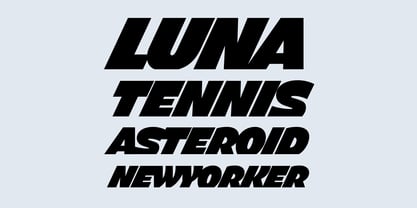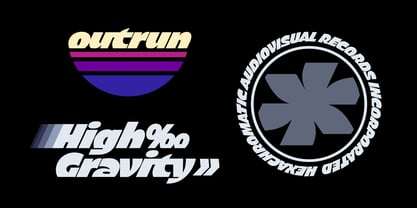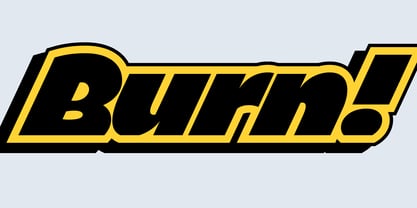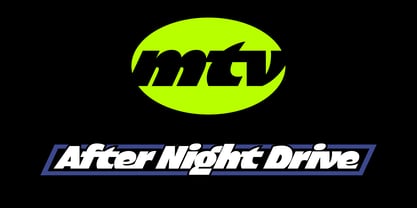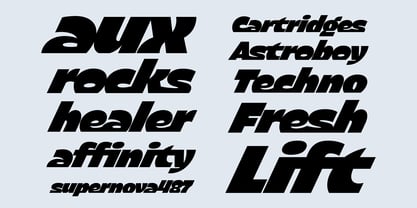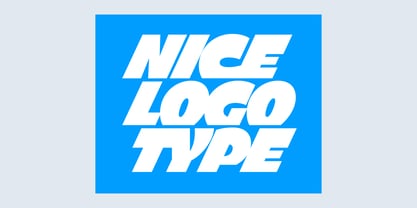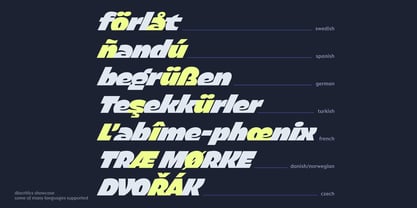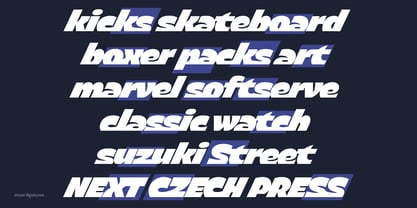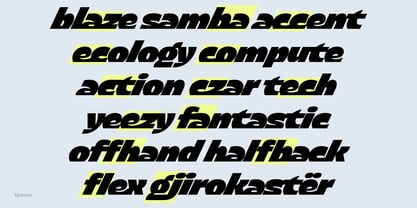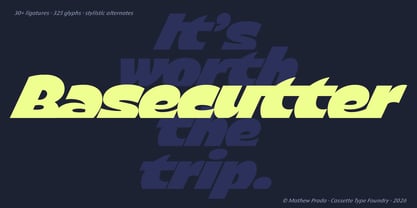
Basecutter
Die Schriftfamilie Basecutter wurde von Mathew Prada entworfen und von Cassette Type veröffentlicht. Basecutter enthält 1 Stile. Mehr über diese Familie
Sharp on the bottom, generously curved above, this typeface offers many strong connections. Featuring a tight rhythm and dozens of discretionary ligatures, the text flows naturally across the baseline as you type and characters naturally join to form bespoke-looking compositions
The system also includes a key alternate 'o' (among others) that add a friendlier touch to the system. The result is a dynamic, high-intent display font designed to catch eyes.